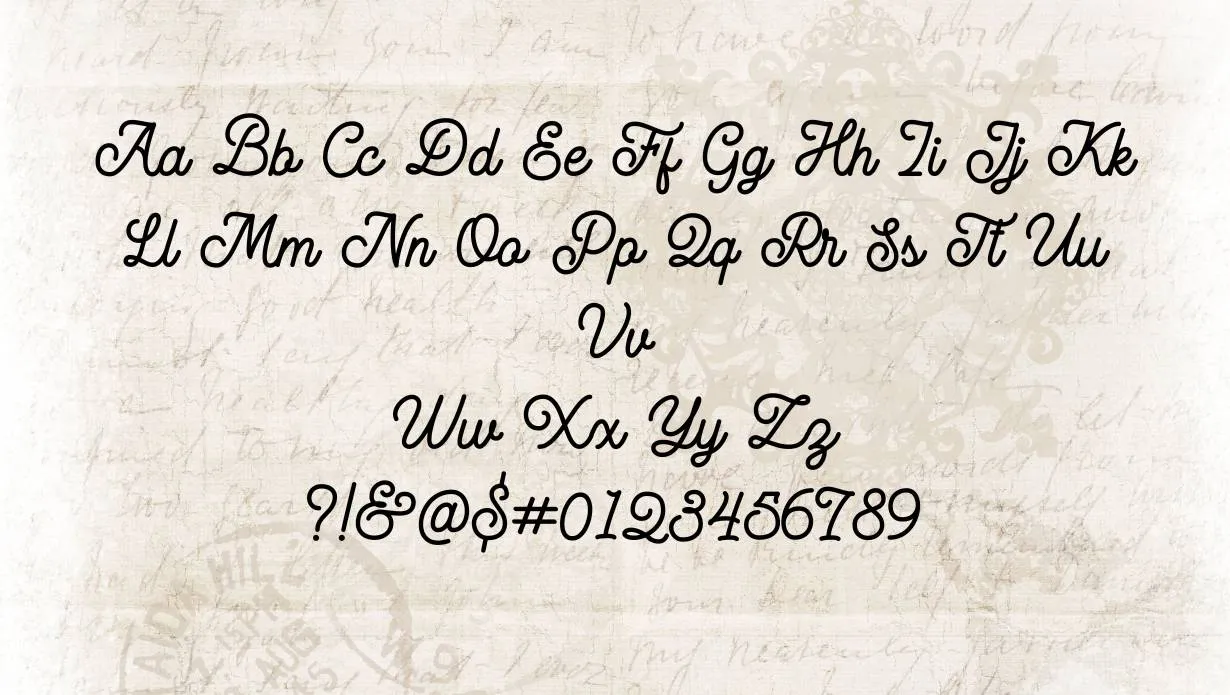
The Routen Lightning Monoline font is a stylish, contemporary typeface featuring sleek lines. This font is often used in technology-related designs, logos, and posters. Its clean and futuristic appearance adds a touch of modernity to various creative projects.
The smooth lines give a sense of fluidity, making it a great choice for designs that need a polished and modern look. To add pleasantness and precision to your design, consider pairing the typeface style with other typefaces, such as the bassy font, which you can find on our website.